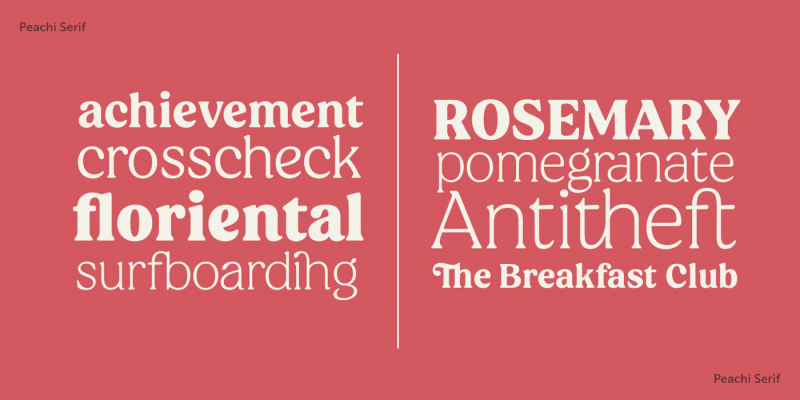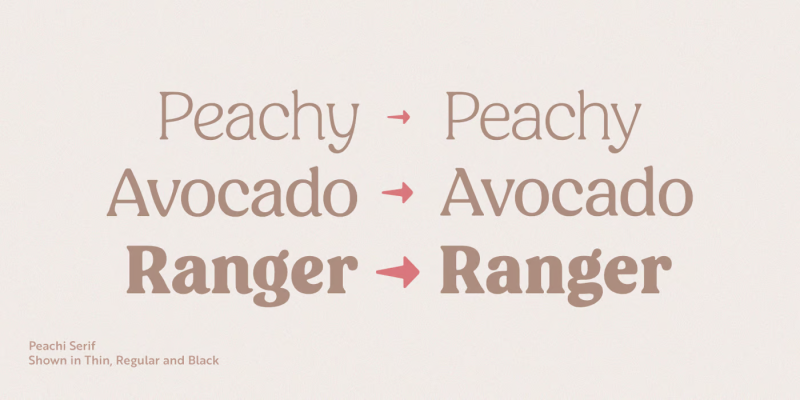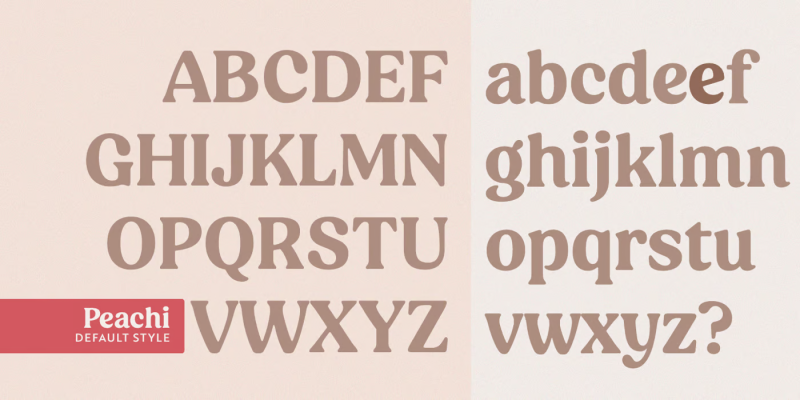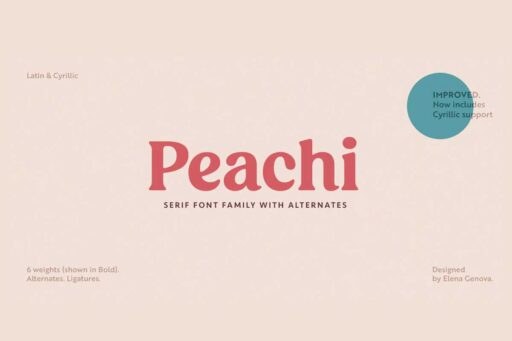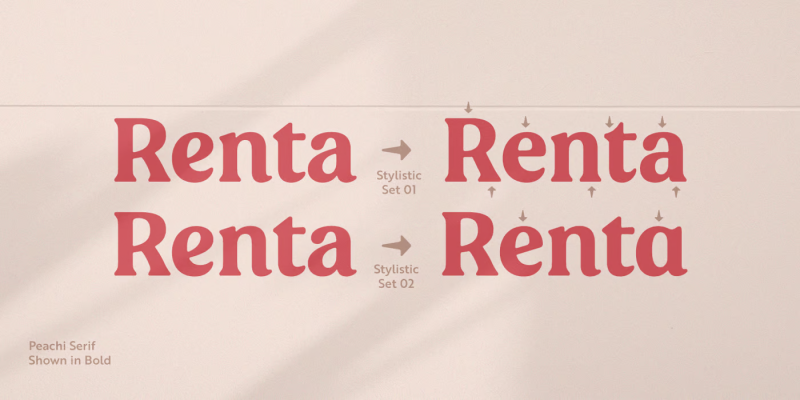
Peachi Font
Peachi is a serif font family inspired by Morris Fuller Benton’s Souvenir forms and other serifs designed around the 1900s. It has a friendly look – smooth edges, slightly rounded-off base of capital K, R, V and W; and lower case k, v, w and y. Due to rather large ball terminals and a big x-height Peachi is an ideal font for creating titles, book covers, branding, quotes design – in other words, any design that has to be noticed and remembered.
Peachi comes with 6 weights from thin to black and includes stylistic sets that allow it to be even more flexible. Though the default style is more in line with Souvenir’s style, the other style appears more contemporary. You can choose any of the styles for your design and it depends on you which one you want to opt.
Where Peachi Font works best
Peachi Font gives long-form text a classic, trustworthy rhythm — ideal for magazine spreads, annual reports and book interiors.
Pair Peachi Font with generous letter-spacing for wordmarks in fashion, hospitality, wine and jewellery branding.
Use Peachi Font for slide titles in Keynote, PowerPoint or Google Slides to add authority without looking dated.